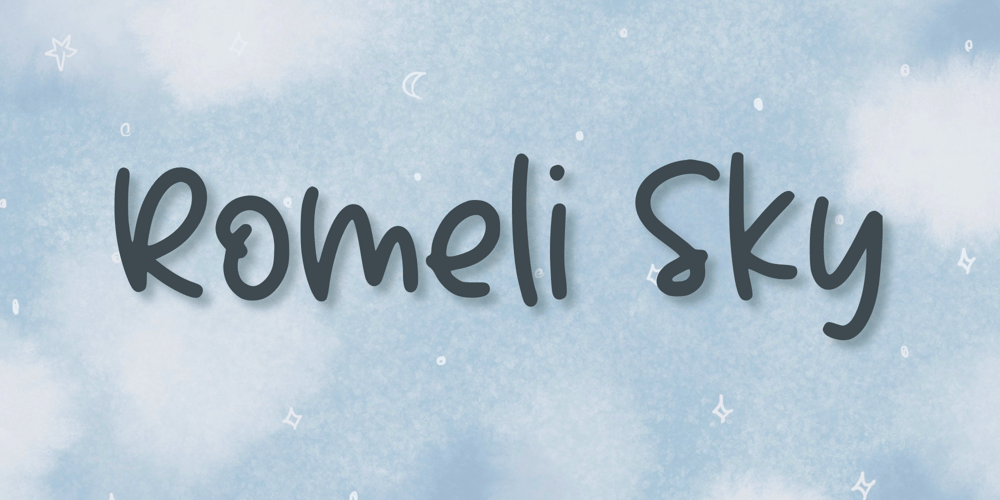
Romeli Sky Font Family was designed by Nur Aiysah Amalia and published by Aisyah. Romeli Sky contains 1 styles and family package options. Discover the charming allure of Romely Sky, a delightfully whimsical handwriting-inspired font. Perfectly attuned to the needs of personal notes or ingenious creative undertakings, Romely Sky beautifully captures the fluid character of natural handwriting yet showcases an irresistible lovable quality. Dive into the world of personal expression and artistic allure with the lovely nuances of Romely Sky.